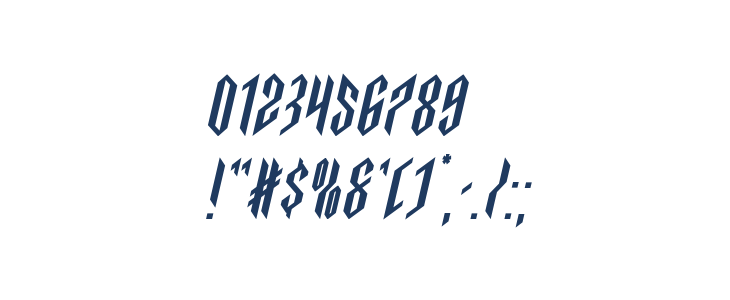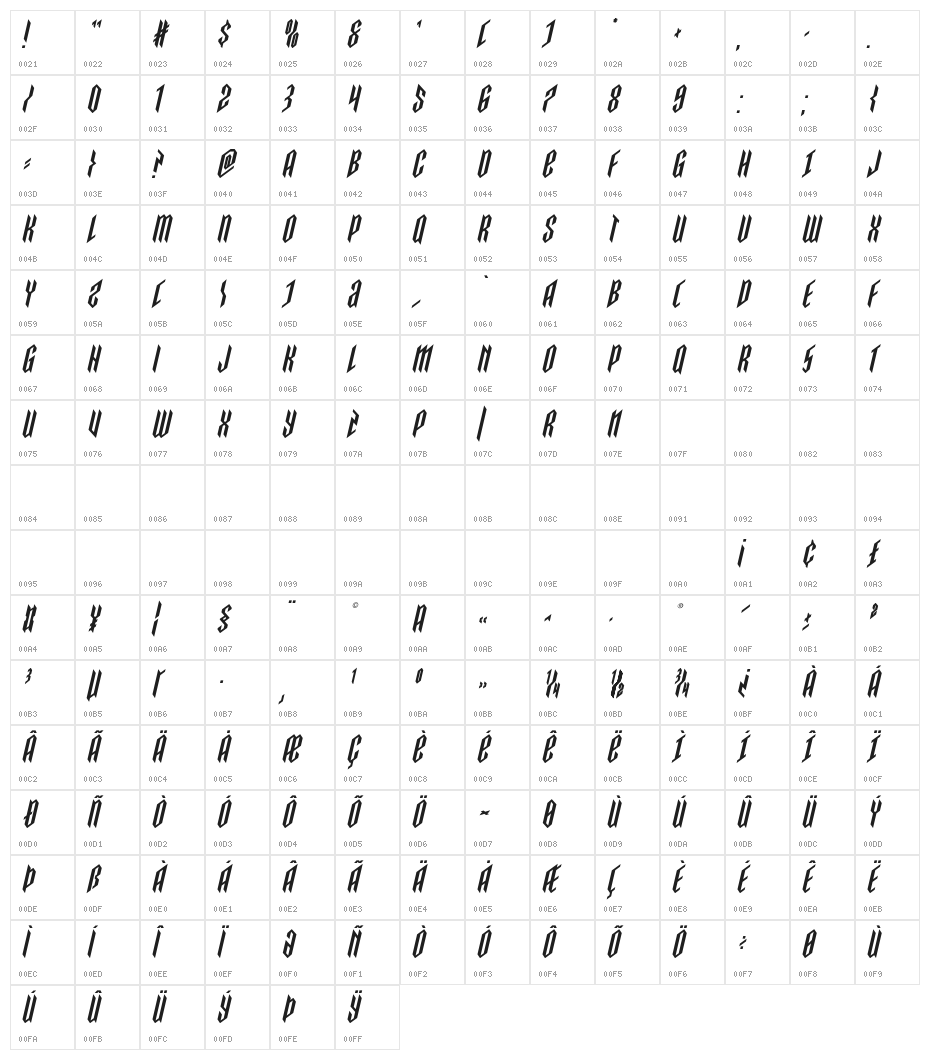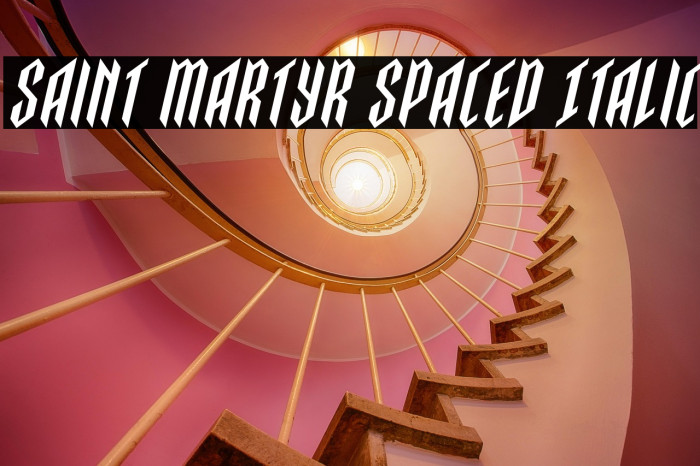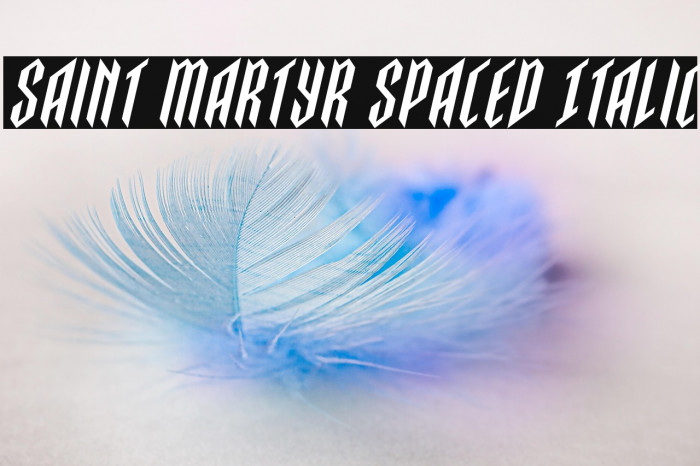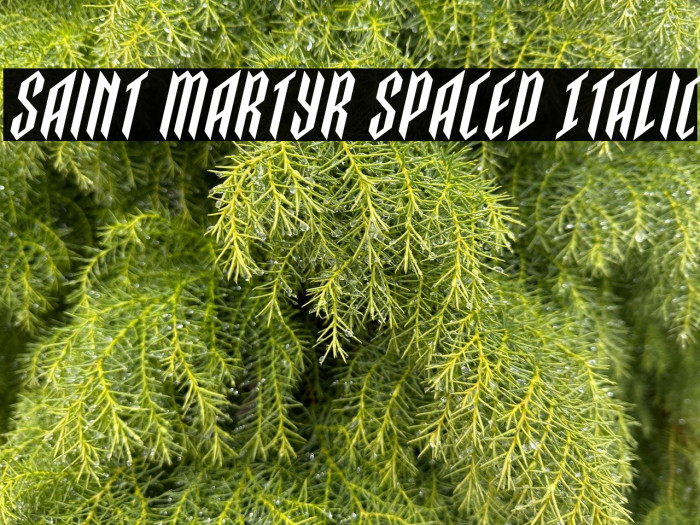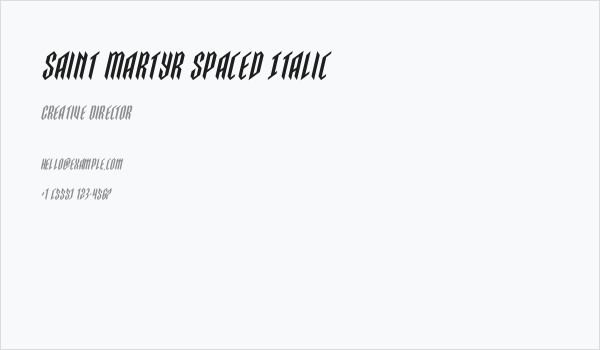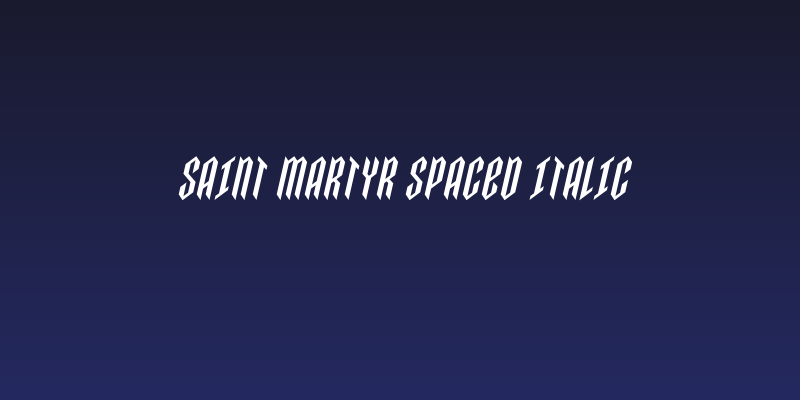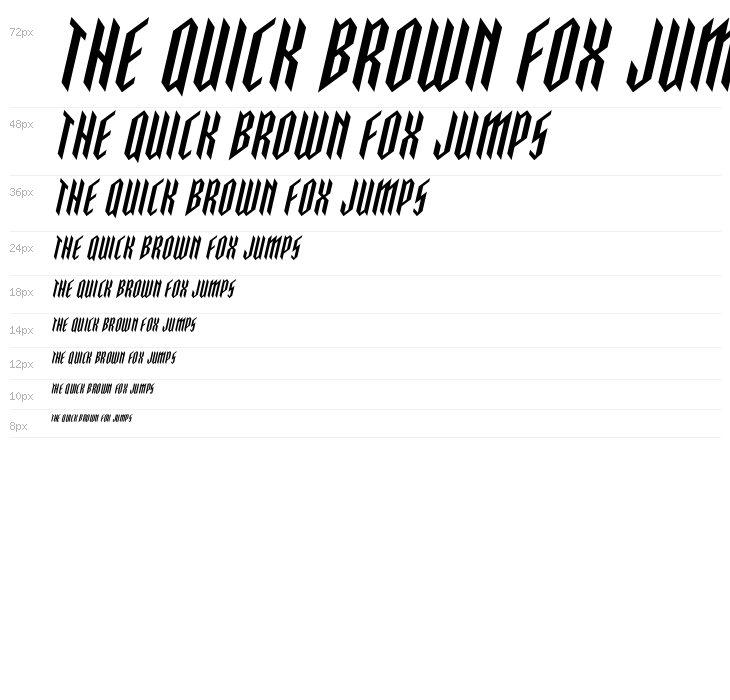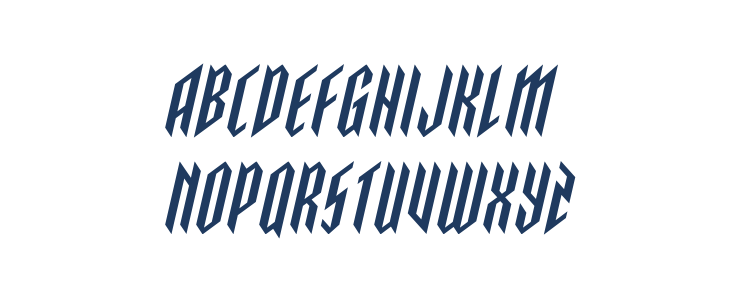
Saint Martyr Spaced Italic Font
Saint Martyr Spaced Italic Description
This font features a bold, italicized style with a distinct slant, giving it a dynamic and energetic appearance. The characters are sharply angular, with pointed edges and a consistent stroke width that conveys a sense of strength and assertiveness. The uppercase and lowercase letters maintain a cohesive design, while the numerals and special characters complement the overall aesthetic. The spacing between characters is moderate, allowing for readability while maintaining the font's striking impact. This font's unique style makes it suitable for attention-grabbing designs.